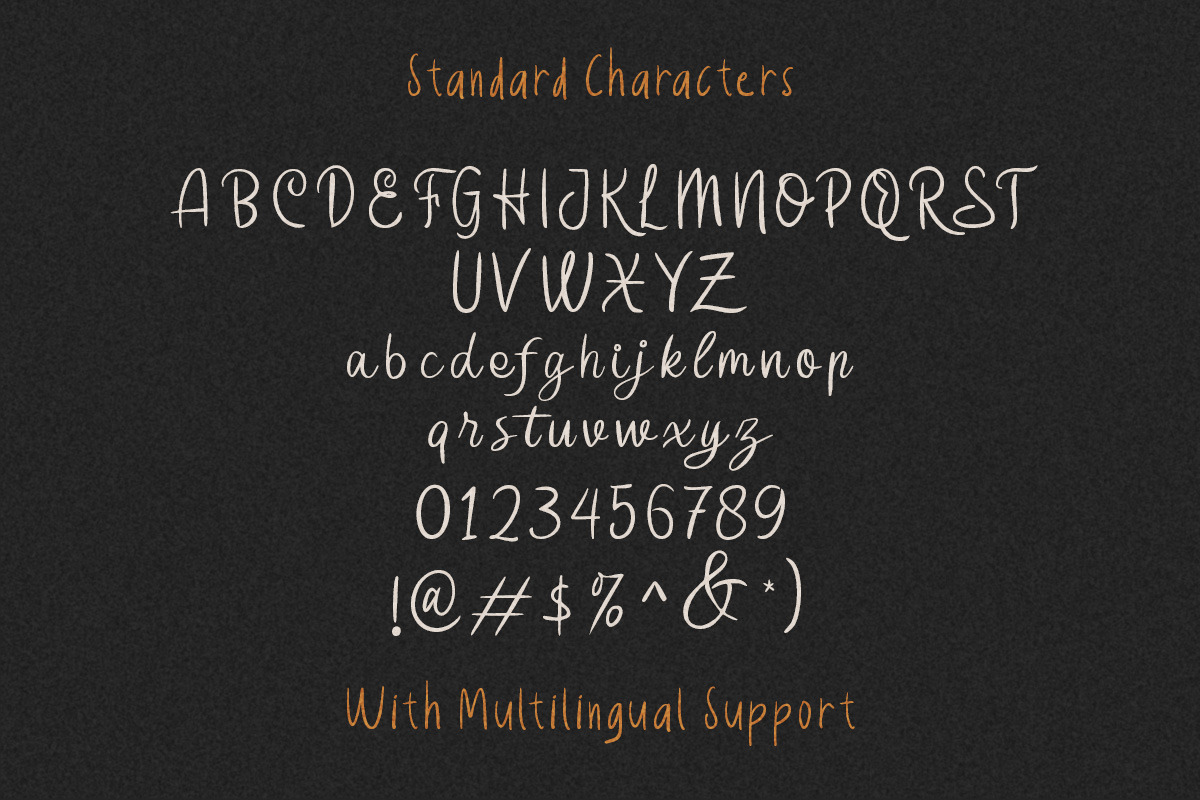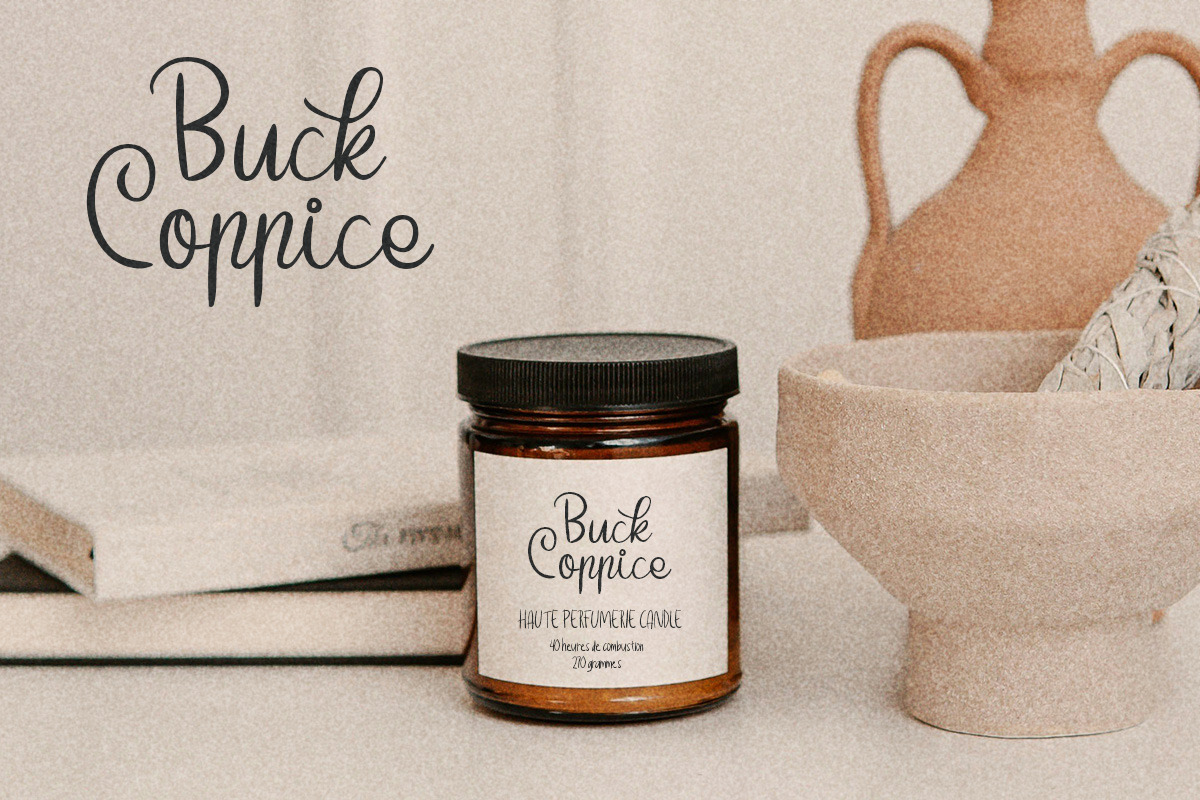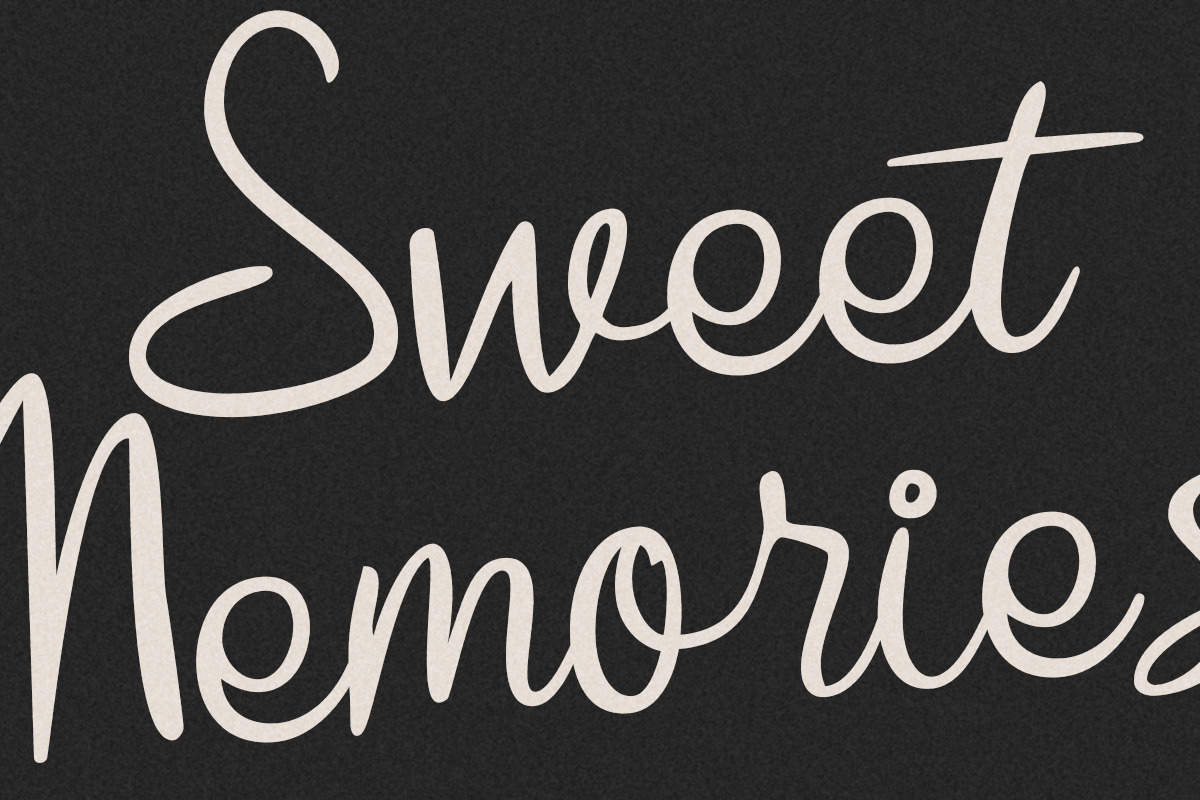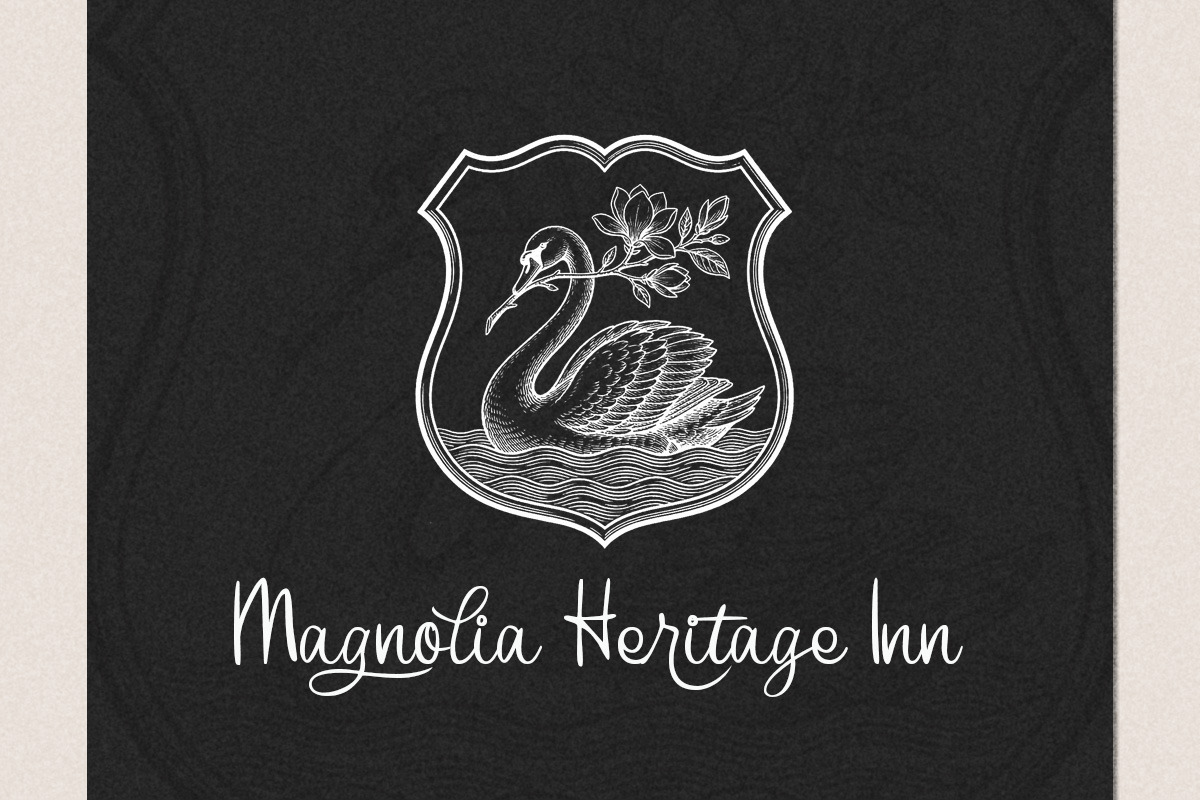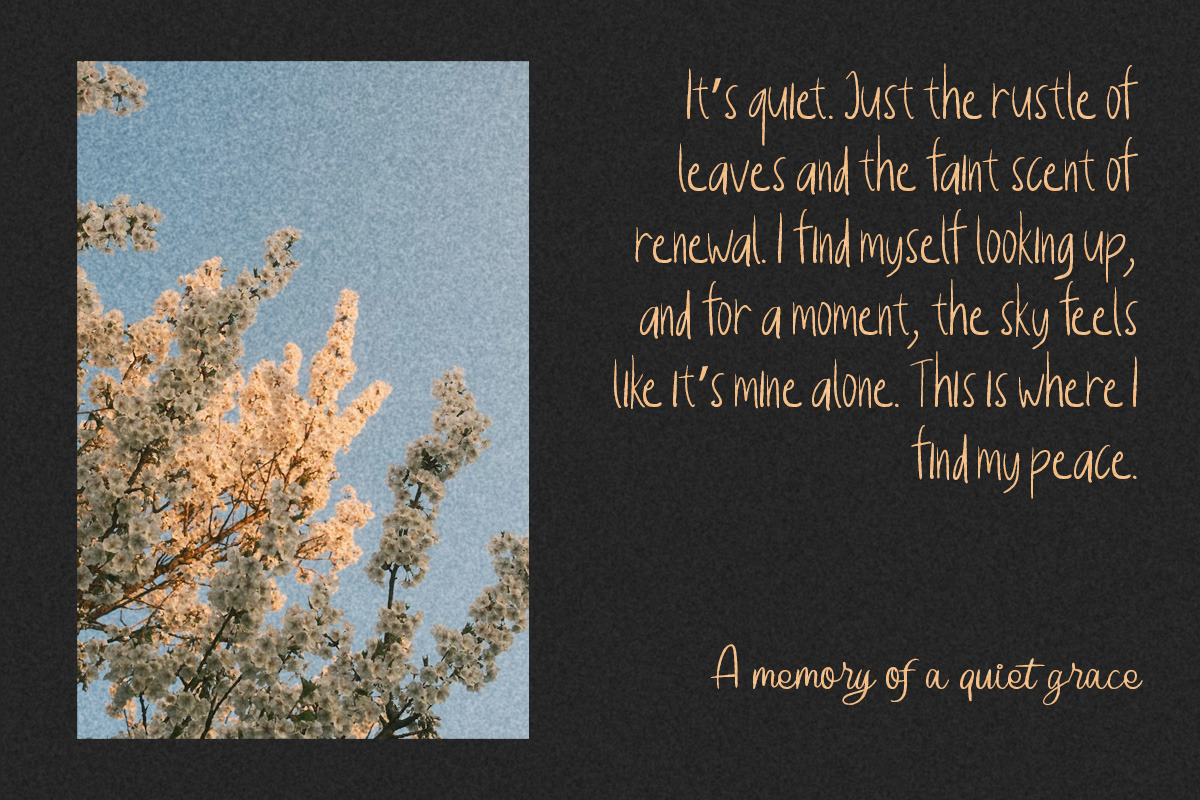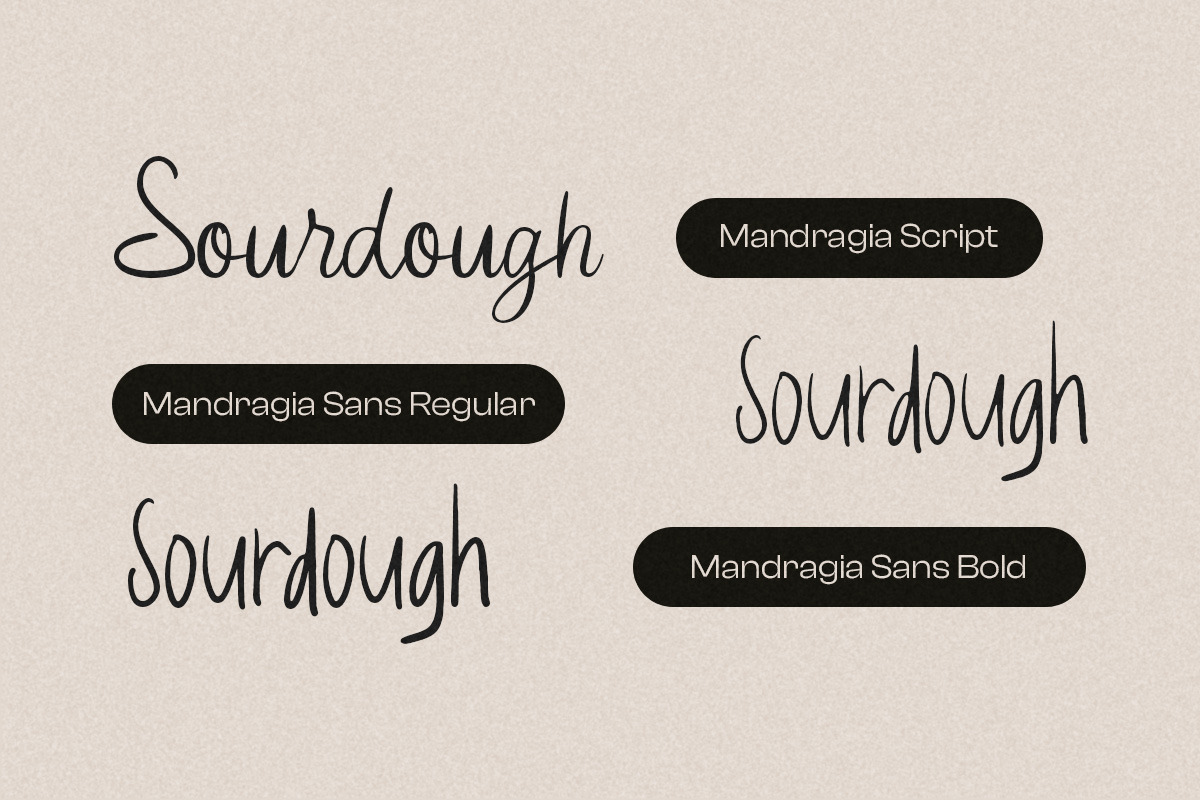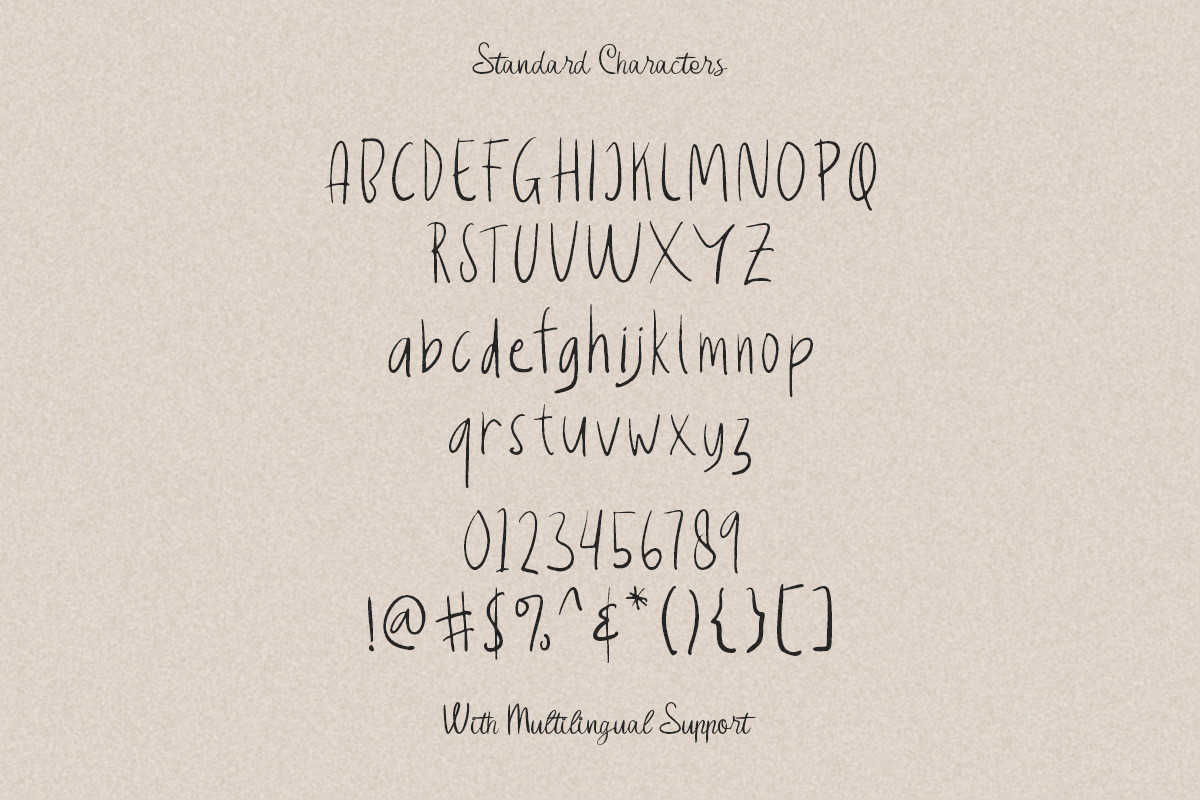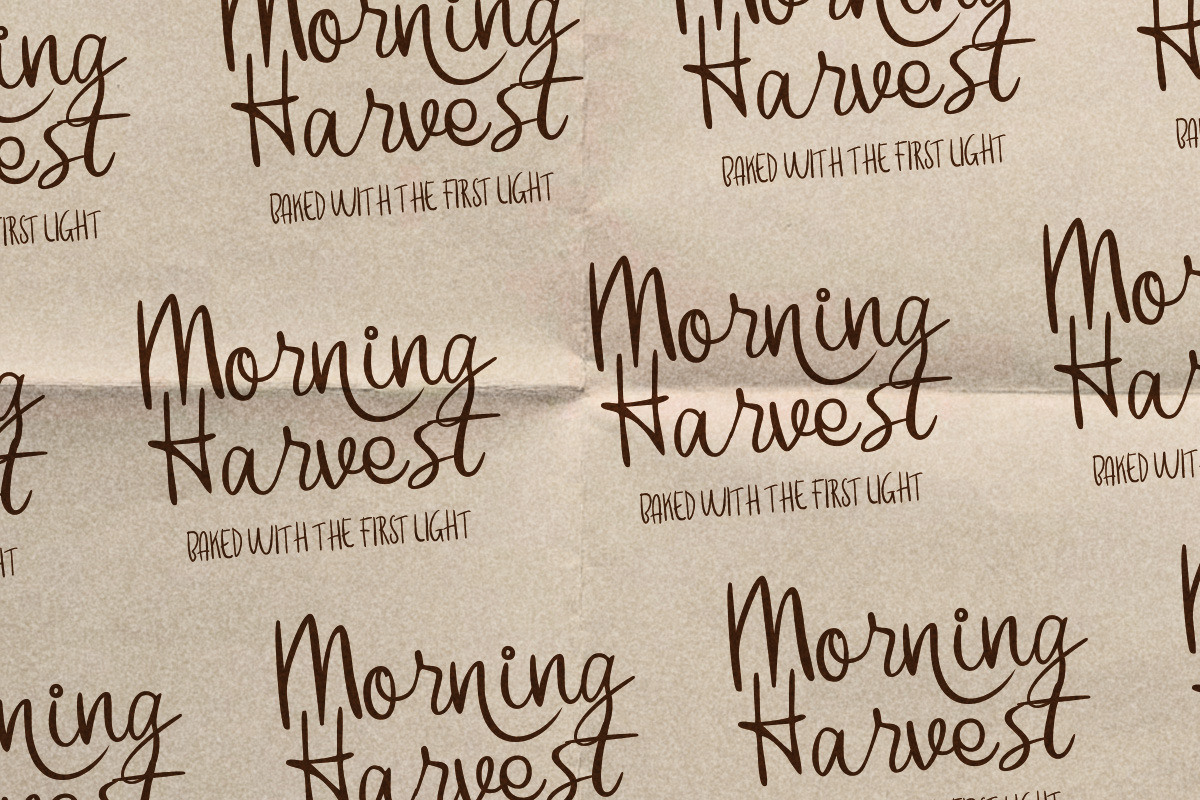
Mandragia Handcrafted Script
Mandragia feels like a quiet signature with a soft, natural flow—smooth, relaxed, and effortlessly stylish. This handcrafted script carries gentle curves, slightly imperfect strokes, and a human touch that makes every word feel warm and real, like it was written with intention. Paired with a clean sans bonus, perfect for branding, invitations, packaging, or calm lifestyle visuals that lean into a modern, down-to-earth vibe.